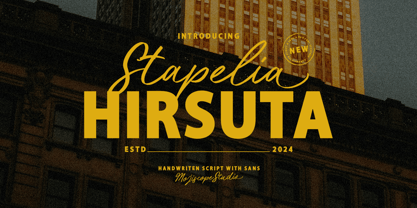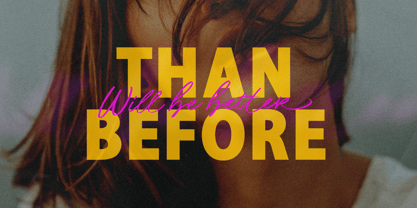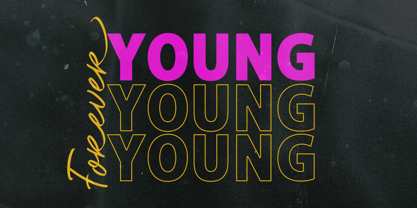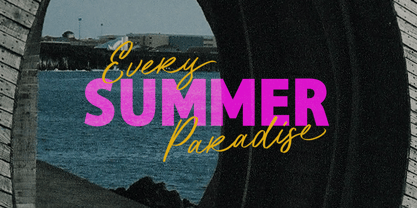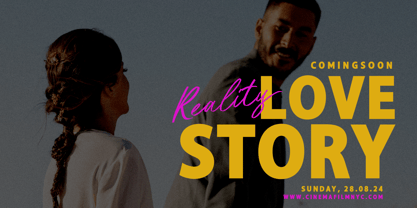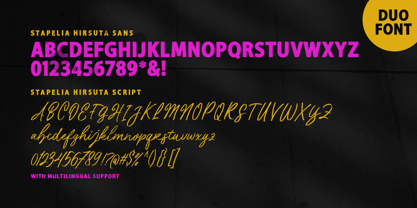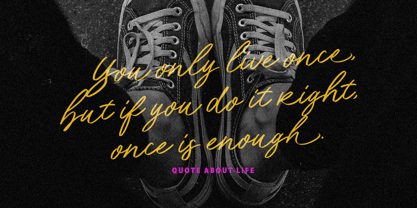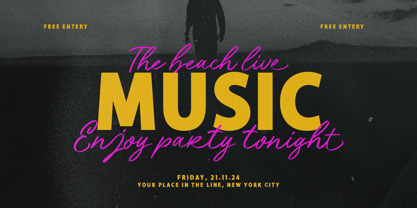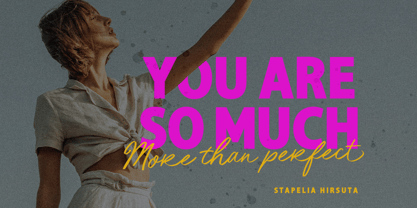
Stapelia Hirsuta
Stapelia Hirsuta is a unique font duo that combines the clean lines of a sans serif font with the organic feel of a handwritten script font. The result is a font that is both modern and elegant, and perfect for a variety of design projects. Here are some of the key features of Stapelia Hirsuta: A combination of sans serif and handwritten script styles, A clean and modern look, An elegant and sophisticated feel, Perfect for a variety of design projects.
Stapelia Hirsuta